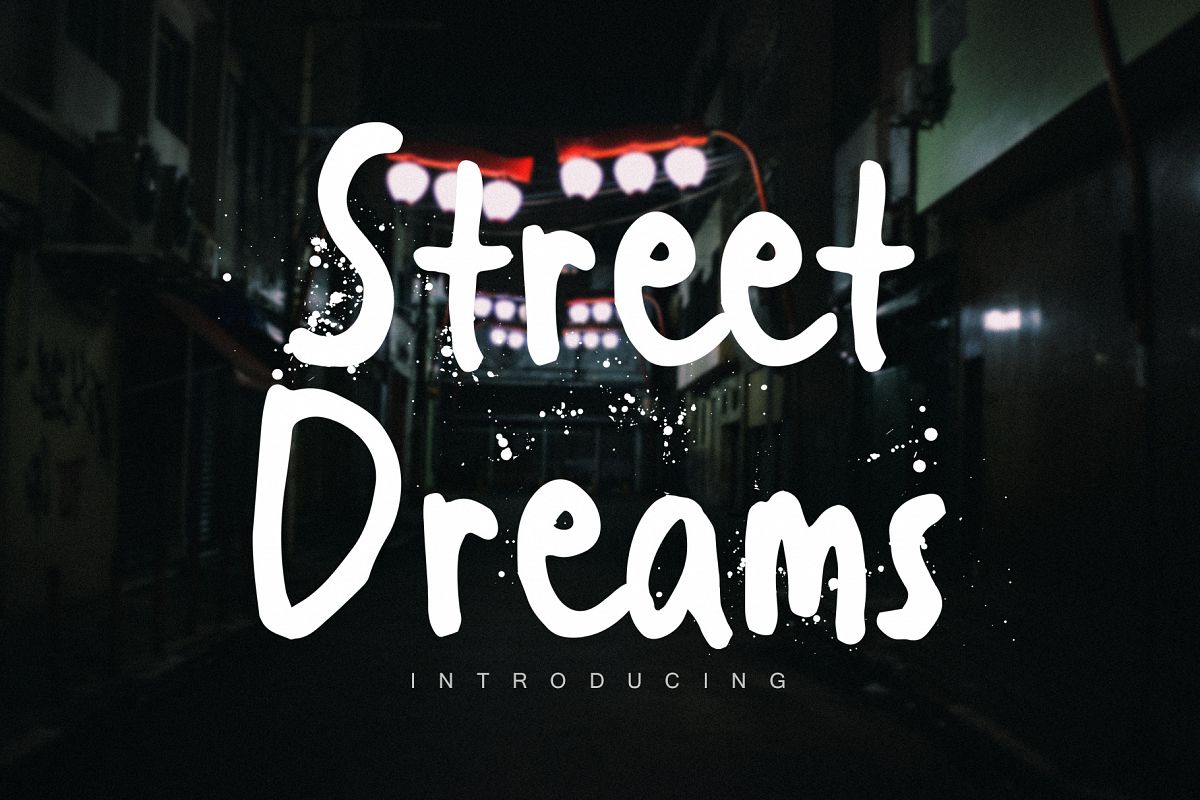
Street Dreams font
Introducing
Street Dreams Font,manual hand drawn from real brush, You can use it
for cover profile social media, instagram post, labeling, clothing,
books,album covers, poster, any printable project .etc